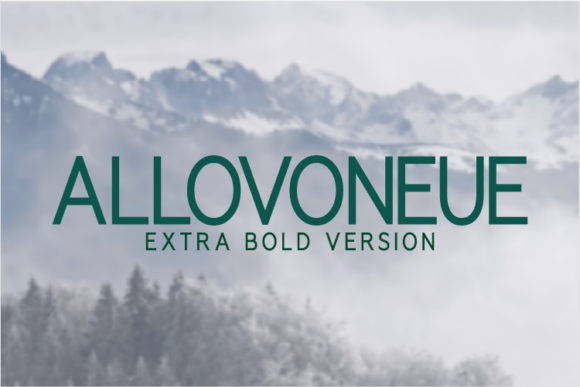
The Allovoneue Extra Bold Font: A Designer’s New Best Friend
I’ll never forget the time I was working on a project for a trendy new cafe, and I just couldn’t find the right font to capture their modern, edgy vibe. The client wanted something bold, geometric, and eye-catching, but everything I tried seemed to fall flat. That’s when I stumbled upon the Allovoneue font family, and let me tell you, it was love at first sight! 💕
Allovoneue is a fresh, geometric, sans-serif font family that’s perfect for designers, crafters, and creative hobbyists like you and me. Its geometrical letterforms, sharp edges, and very small stroke contrast give it a neo-grotesk feel that’s reminiscent of 20th-century fonts. But what really sets Allovoneue apart is its versatility – it can be used in magazines, posters, branding, and so much more!
What I Love About Allovoneue ✨
• ✅ Clean and modern design: Allovoneue’s geometric shapes and sharp edges give it a sleek, contemporary look that’s perfect for modern designs.
• ✅ Highly versatile: Whether you’re working on a magazine, poster, or branding project, Allovoneue can handle it all.
• ✅ Easy to read: Despite its bold and geometric design, Allovoneue is surprisingly easy to read, even at smaller font sizes.
• ✅ OpenType features: Allovoneue supports OpenType features, including glyphs and stylistic alternates, which give you even more creative freedom.
• ⚠️ Limited language support: Allovoneue currently supports a limited number of languages, so make sure to check the font’s capabilities before using it for a multilingual project.
• ⚠️ No italic version: Unfortunately, Allovoneue doesn’t come with an italic version, which might limit its use in certain design contexts.
The Designer Inspiration Behind Allovoneue
Allovoneue was designed with the goal of creating a modern, geometric sans-serif font that’s both versatile and stylish. The designer’s inspiration came from the neo-grotesk fonts of the 20th century, with a focus on clean lines, sharp edges, and a bold, geometric aesthetic.
Q: What is the Allovoneue font family?
A: Allovoneue is a fresh, geometric, sans-serif font family that’s perfect for designers, crafters, and creative hobbyists.
Q: What are the OpenType features of Allovoneue?
A: Allovoneue supports OpenType features, including glyphs and stylistic alternates, which give you even more creative freedom.
Q: Is Allovoneue available in different weights?
A: Yes, Allovoneue comes in different weights, including Extra Bold. However, the availability of weights may depend on the specific font package or version you’re using.